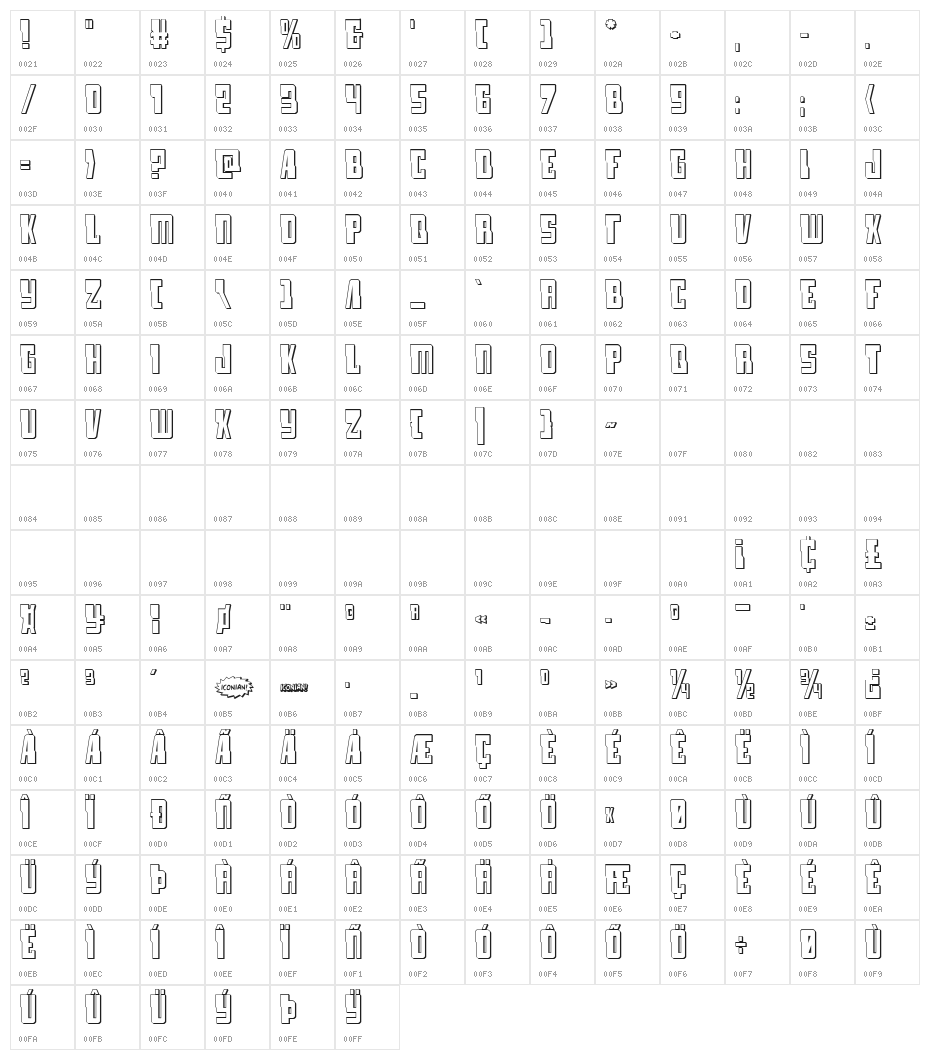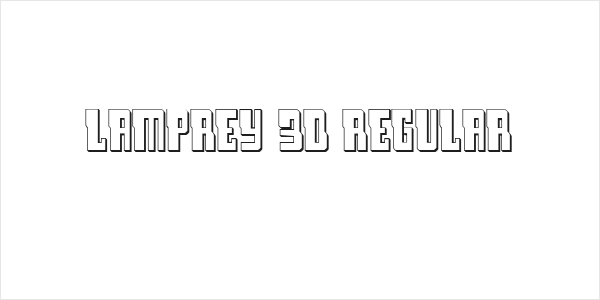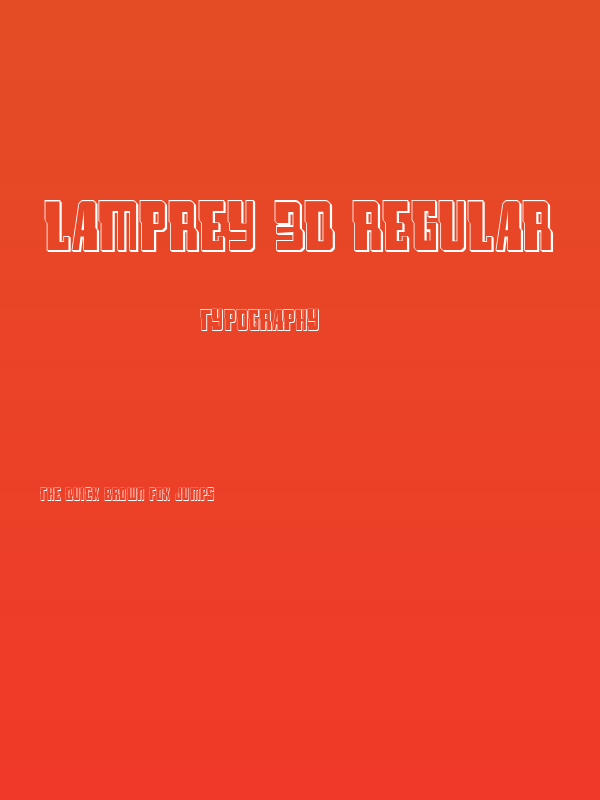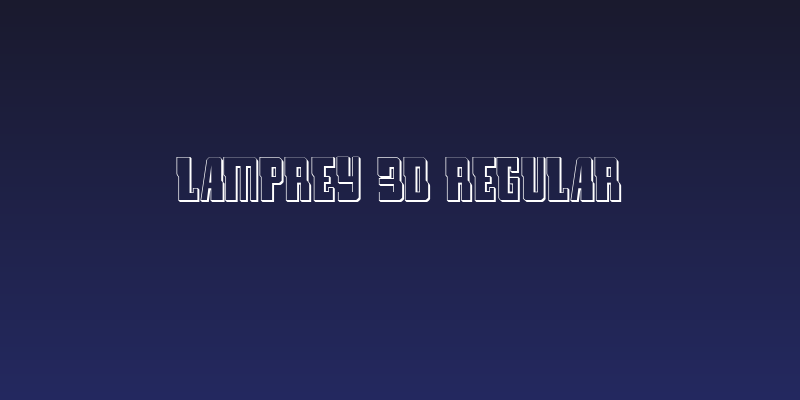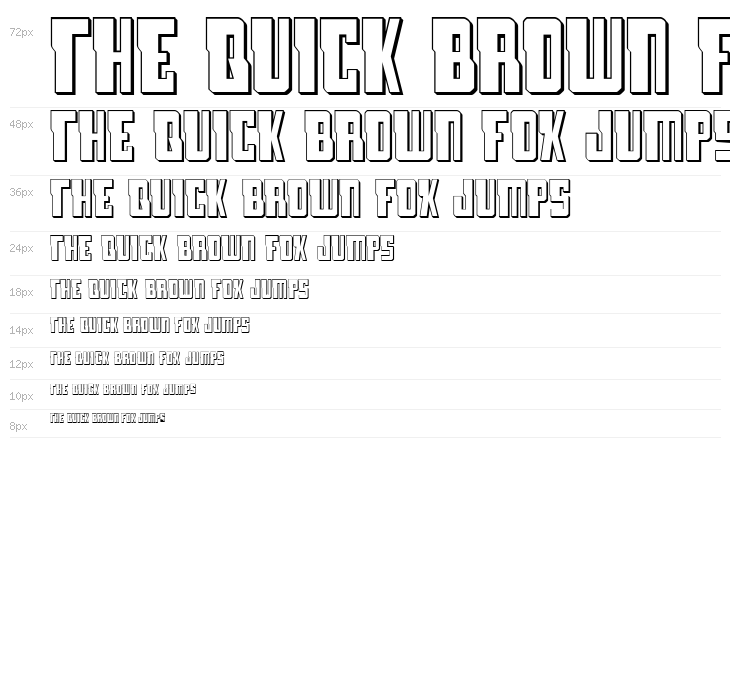
Lamprey 3D Regular Font
Lamprey 3D Regular Description
This font features a bold, three-dimensional style with a strong geometric influence. The characters are outlined, creating a striking visual effect that gives the impression of depth and solidity. Each letter is constructed with sharp angles and straight lines, contributing to a modern and industrial aesthetic. The uppercase and lowercase letters maintain a consistent style, while the numerals and special characters are designed to match the overall theme. This font is ideal for projects that require a bold and impactful look, such as posters, logos, and headlines.